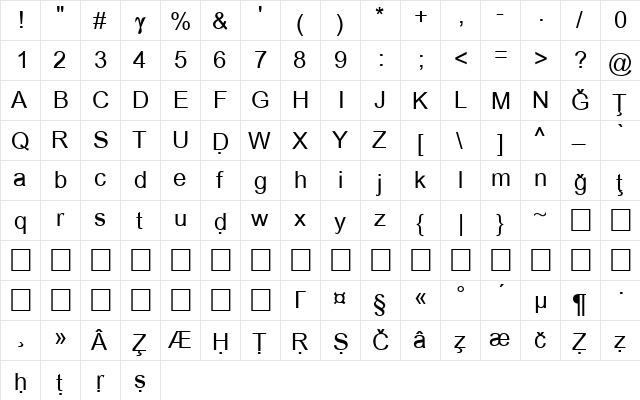
Amazigh Arial Regular
Design Context for Amazigh Arial Typeface
Amazigh Arial offers clean, dependable letterforms without strong stylistic allegiance, making it a practical choice for designers who need flexibility.